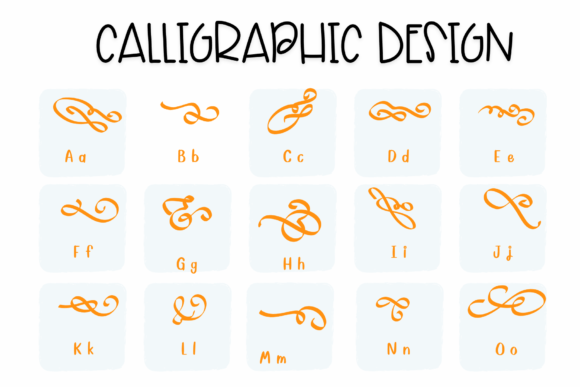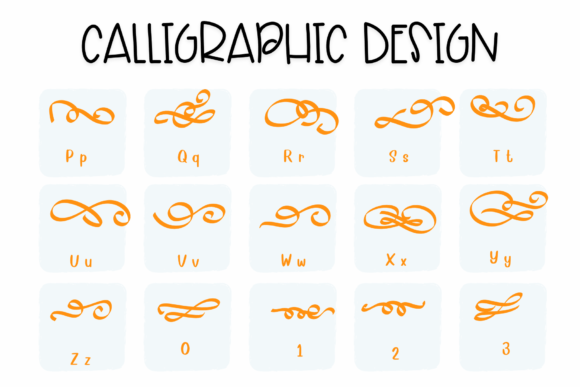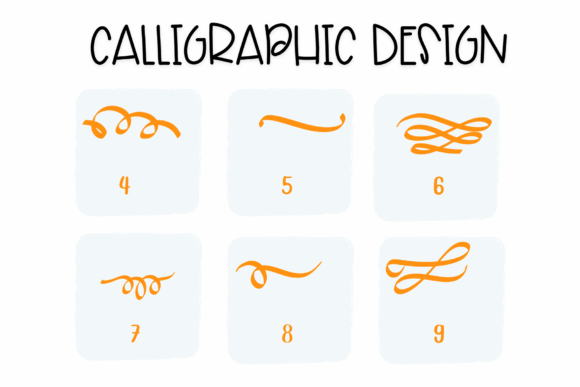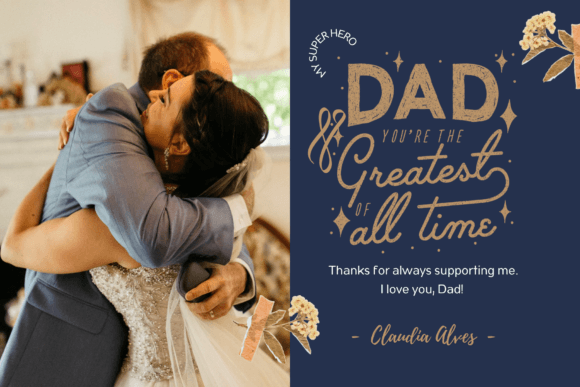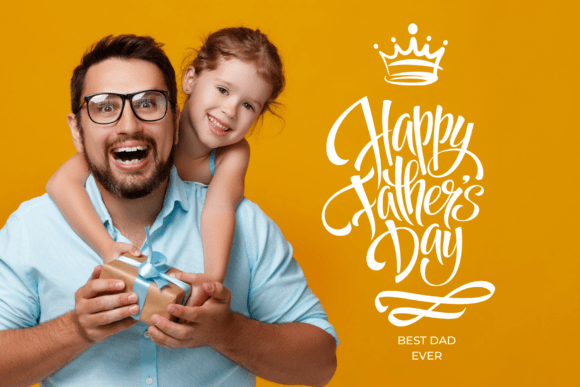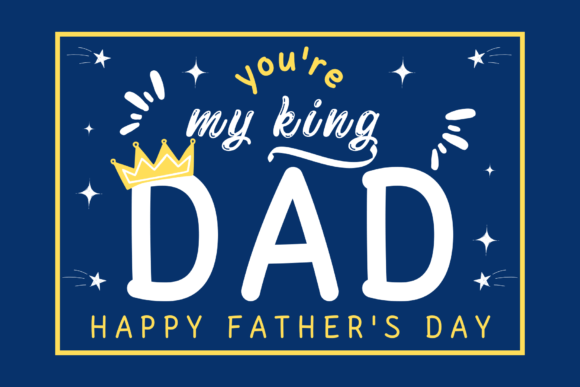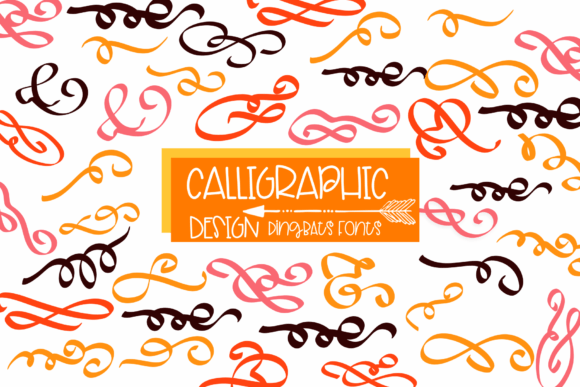
The Magic of Calligraphic Design Font: Elevate Your Creative Projects
I’ll never forget the time I was working on a wedding invitation project, and my client asked for a font that would make their guests feel like they’re part of a luxurious, handmade experience. I scoured the internet, tried countless fonts, but nothing seemed quite right. That was until I stumbled upon Calligraphic Design Font. ✨ It was like a breath of fresh air – a dingbats font with a beautifully sketched style that added a touch of elegance to the entire design.
An Honest Review of Calligraphic Design Font
• ✨ Unique, hand-sketched style that’s perfect for creative projects
• ✅ Versatile and can be used for a wide range of applications, from wedding invitations to DIY crafts
• ✅ Easy to use and pairs well with a variety of fonts
• ✅ High-quality design with intricate details
While Calligraphic Design Font is an amazing addition to any design project, there are a few things to keep in mind: 🤔
• ⚠️ Limited character set compared to some other fonts
• ⚠️ May require some manual adjustments for optimal results
3. Experiment with OpenType features, such as glyphs and stylistic alternates, to add more personality to your design
Calligraphic Design Font was inspired by the art of traditional calligraphy. The designer, a master of lettering and typography, wanted to create a font that would bring the elegance and sophistication of calligraphy to digital designs. With a focus on intricate details and a hand-sketched style, Calligraphic Design Font was born.
Q: What type of projects is Calligraphic Design Font best suited for?
A: Calligraphic Design Font is perfect for creative projects like wedding invitations, DIY crafts, decorations, logos, and more.
Q: Can I combine Calligraphic Design Font with other fonts?
A: Absolutely! Calligraphic Design Font pairs well with many other fonts. Experiment with different combinations to find the perfect look for your project.